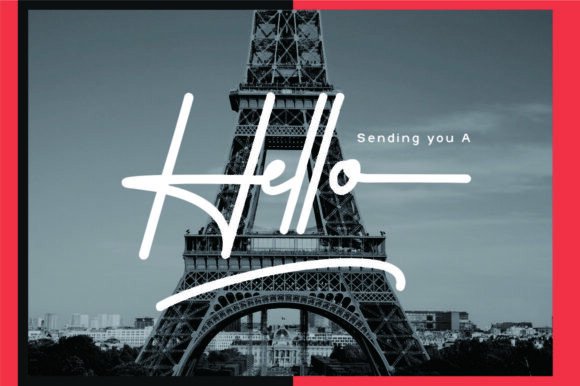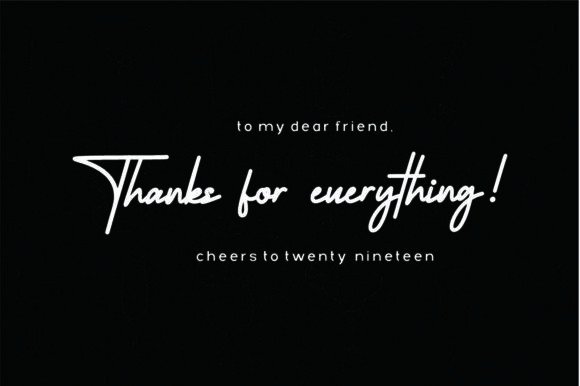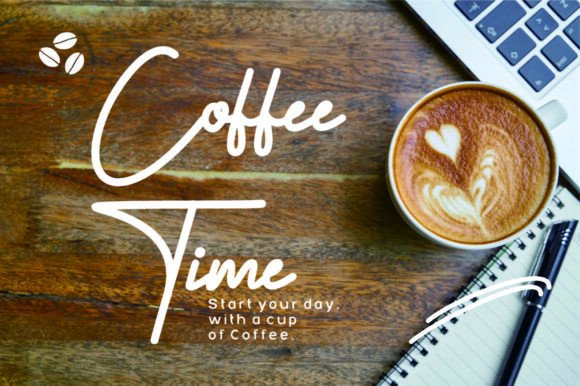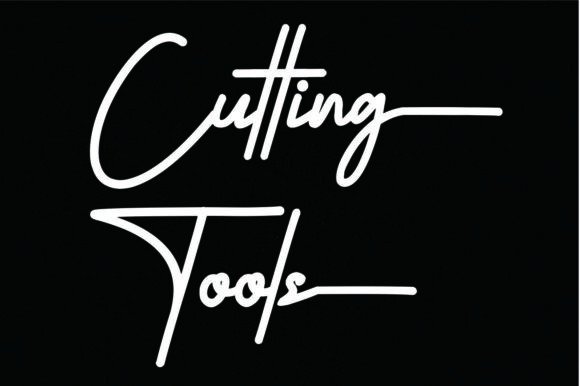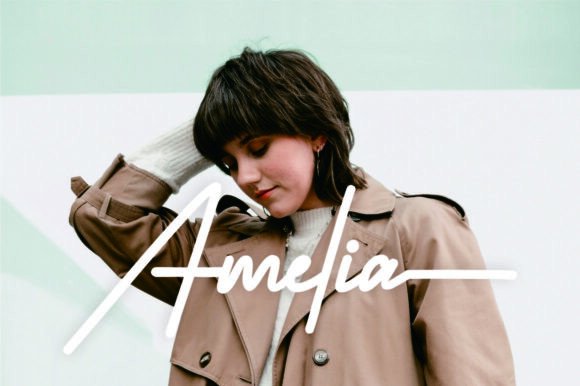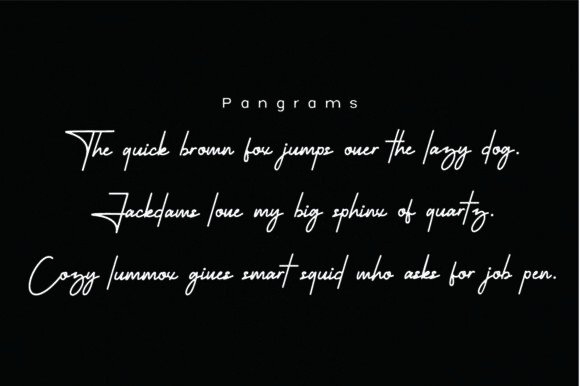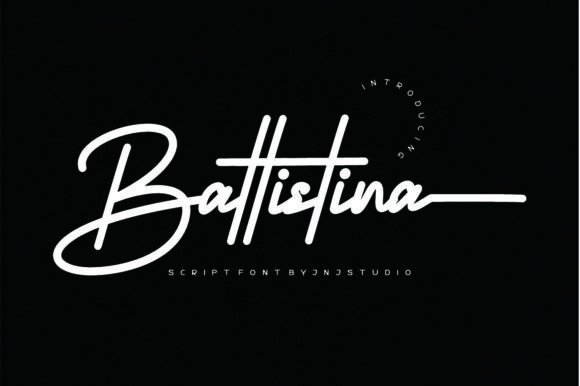
Introducing Battistina: A Timeless Elegance Script Typeface
In the world of typography, few fonts manage to capture the essence of elegance and sophistication as effortlessly as Battistina. This beautiful script typeface is a masterful blend of classic calligraphy and modern lettering, resulting in a design that exudes warmth, refinement, and a touch of luxury. Whether you’re a designer, craftsperson, or simply someone with an appreciation for the finer details, Battistina is sure to leave a lasting impression.
The Inspiration Behind Battistina
Battistina’s design is rooted in the rich traditions of calligraphy and lettering. The font’s creator drew inspiration from the flowing curves and balanced strokes of classic scripts, infusing them with a modern sensibility that makes Battistina feel fresh and relevant. The result is a typeface that feels both timeless and contemporary, perfect for projects that require a touch of sophistication and elegance.
So, what sets Battistina apart from other script typefaces? For starters, its smooth curves and refined details create a sense of fluidity and movement, giving the font a natural, handwritten feel. The balanced strokes and carefully crafted letterforms ensure that Battistina is highly readable, even at smaller sizes. This makes it an excellent choice for a wide range of applications, from branding and packaging to editorial projects and social media designs.
A Font for Creative Expression
One of the standout features of Battistina is its ability to convey a sense of personality and charm. The font’s gentle rhythm and artistic flair make it perfect for designers and craftspersons looking to add a touch of luxury and sophistication to their work. Whether you’re creating wedding invitations, logos, or editorial content, Battistina brings a level of elegance and refinement that’s hard to match.
Battistina’s versatility is one of its greatest strengths. This font can be used in a wide range of projects, including:
- Branding: Create a lasting impression with Battistina’s elegant, sophisticated design.
- Wedding Invitations: Add a touch of luxury and romance to your wedding stationery.
- Logos: Create a memorable brand identity with Battistina’s unique, artistic flair.
- Social Media Designs: Elevate your social media presence with Battistina’s refined, elegant design.
- Packaging: Stand out on store shelves with Battistina’s sophisticated, eye-catching design.
- Editorial Projects: Add a touch of luxury and refinement to your editorial content.
A Harmonious Blend of Tradition and Modern Style
Battistina is more than just a font – it’s a design statement. This elegant script typeface brings together the best of traditional calligraphy and modern lettering, creating a design that’s both timeless and contemporary. With Battistina, you can add a touch of sophistication and elegance to your work, while still conveying a sense of personality and charm.
In conclusion, Battistina is a truly exceptional script typeface that offers a unique blend of elegance, sophistication, and artistic flair. Whether you’re a designer, craftsperson, or simply someone with an appreciation for the finer details, Battistina is sure to inspire. With its smooth curves, balanced strokes, and refined details, this font is perfect for a wide range of projects that require a touch of luxury and personality. So why settle for an ordinary font when you can make a statement with Battistina?